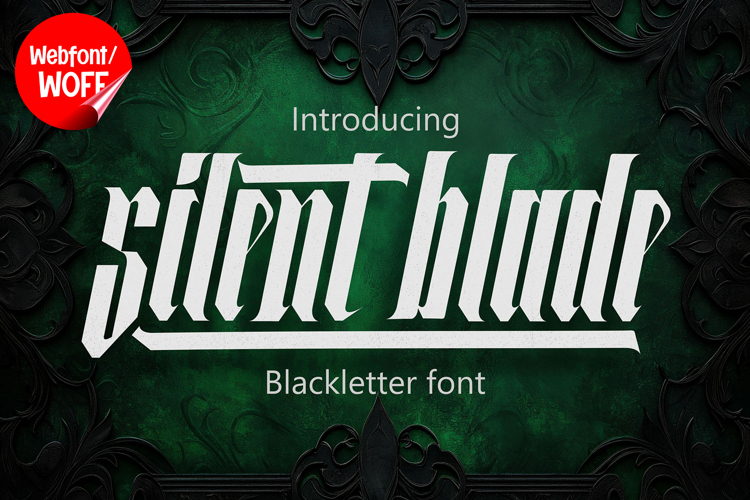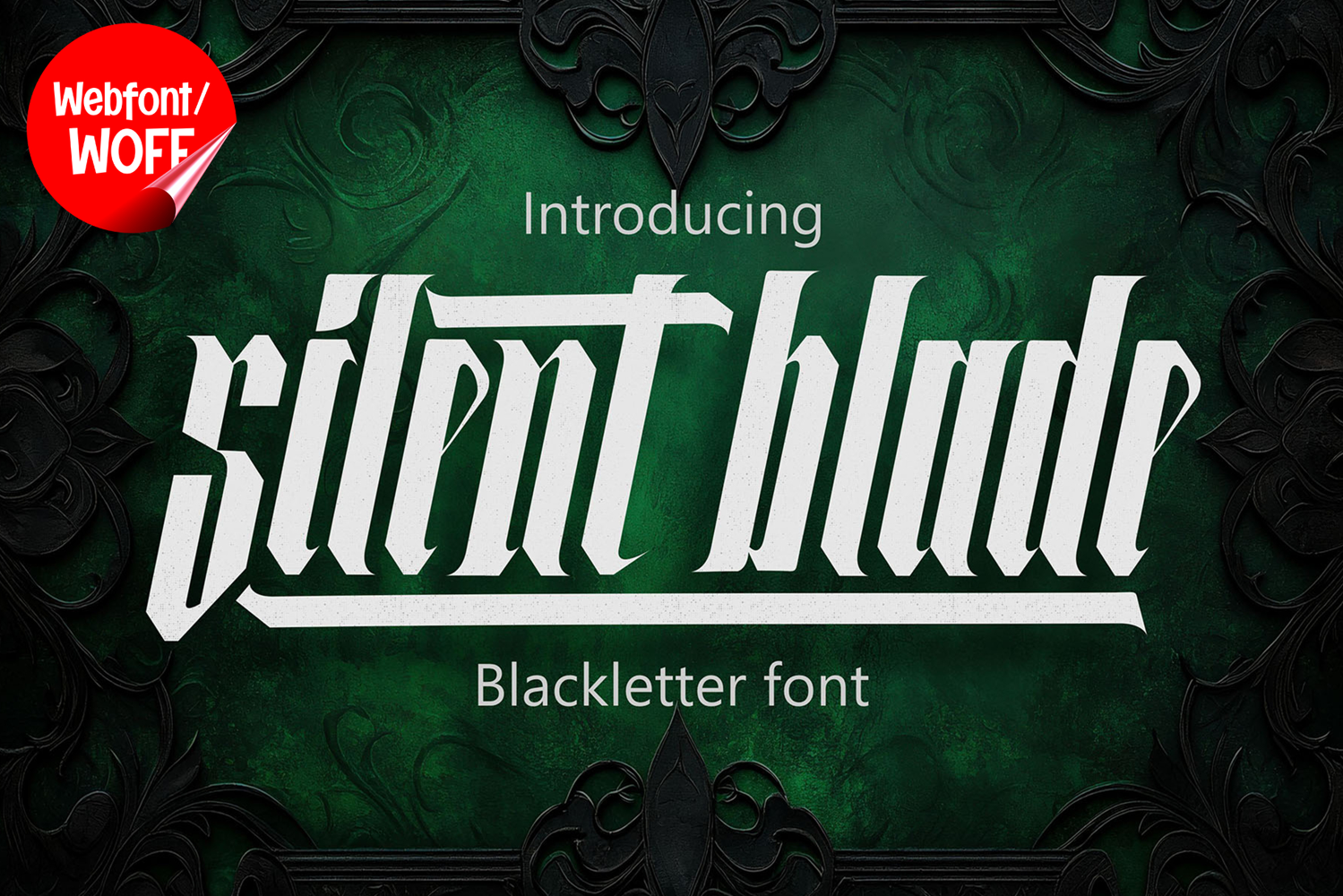
Silent Blade | Blackletter Webfont for Gothic Modern Design
Silent Blade is a blackletter webfont designed to bring a sharp, elegant, and powerful gothic aesthetic into modern website design. Inspired by traditional blackletter calligraphy and medieval typography, this font features precise strokes, angular forms, and dramatic contrasts that create a strong and refined visual identity. It is an excellent choice for projects that require a bold, classic, and authoritative typographic style with a modern edge.
Silent Blade includes a complete set of uppercase characters designed with structured blackletter forms. The letterforms feature sharp edges and controlled proportions, delivering a clean yet intense gothic appearance. These characteristics make it ideal for headlines, banners, hero sections, and featured content where a strong and elegant presence is needed.
In addition to letters, the font includes numbers and punctuation, allowing flexible usage across various parts of a website. It works well for branding, editorial layouts, fashion websites, music platforms, and themed digital campaigns. Each character maintains a consistent blackletter style, ensuring a cohesive and unified visual identity throughout the layout.
With multilingual support, Silent Blade includes a wide range of accented characters, making it suitable for international websites and global audiences. This allows content to be displayed clearly across different languages while preserving the gothic and refined aesthetic.
The blackletter style of Silent Blade makes it especially suitable for gothic-themed websites, luxury branding, metal music projects, tattoo design showcases, and historical or fantasy content. Its sharp and elegant design adds depth and sophistication, helping websites stand out with a unique and memorable visual identity. The structured form also enhances readability while maintaining decorative appeal.
Despite its intricate and stylized appearance, Silent Blade is designed with readability in mind. The spacing and proportions are carefully balanced to ensure clarity, particularly in display sizes. This makes it effective for impactful headings and short text elements where both style and usability are important.
Silent Blade is a webfont that combines traditional blackletter aesthetics with modern digital performance. Its sharp forms, elegant structure, and bold character create a distinctive typographic presence that enhances website design. For projects that require a gothic, refined, and visually engaging font, Silent Blade offers a strong and versatile solution.